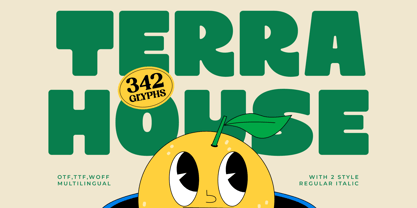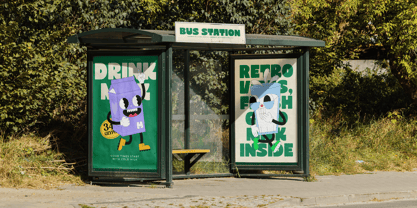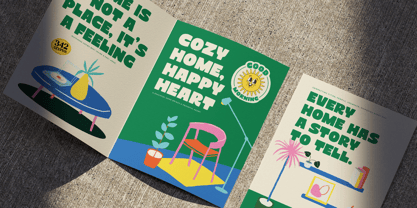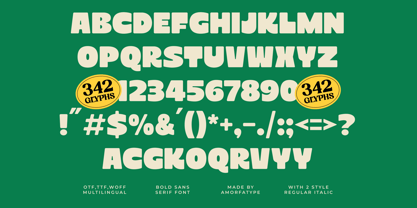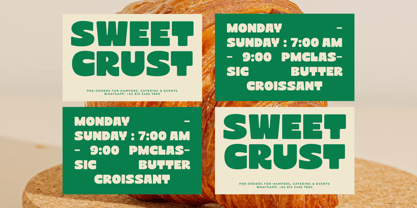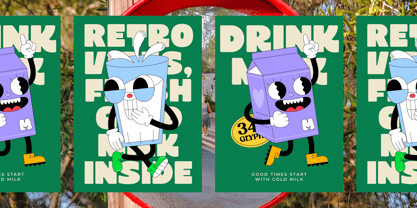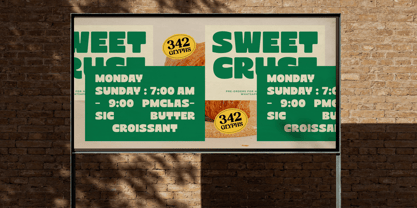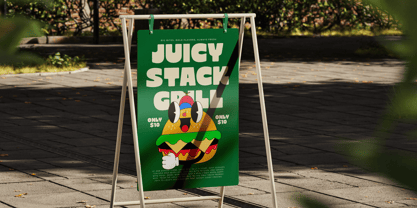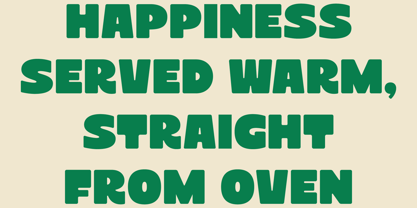
Terra House
by Amorfa Type
The Terra House Font Family was designed by Shiddiq Roihan and published by Amorfa Type. Terra House contains 2 styles and family package options. More about this family
Terra House is a strong and stylish bold sans display font that combines modern geometry with a confident personality. With its clean lines, sharp edges, and solid letterforms, Terra House delivers a striking presence that makes your typography bold and memorable. Perfect for branding, posters, packaging, editorial layouts, and digital projects, Terra House radiates power and clarity while keeping a versatile and professional look. Each character is designed with balance and precision, ensuring both readability and impact across various applications. Terra House offers creative flexibility to bring unique character and variation into your designs. Whether you’re creating a bold logo, eye-catching headline, or stylish product design, Terra House elevates your work with modern confidence.
Designers: Shiddiq Roihan
Foundry: Amorfa Type